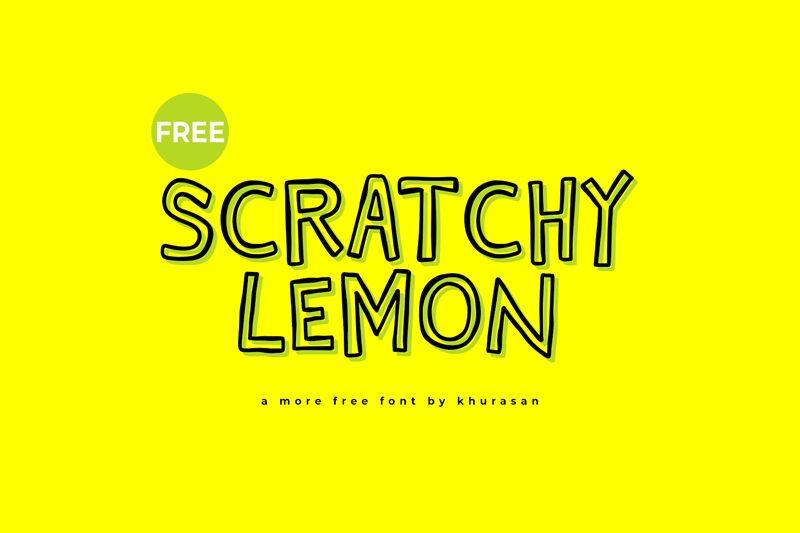
Scratchy Lemon
Scratchy Lemon font, designed by Khurasan, embodies a playful spirit with its outlined cartoon style. This font captures attention with its whimsical contours and lively character, striking a balance between fun and boldness. The exaggerated forms give it a dynamic presence, making it perfect for creative projects that aim to evoke joy and enthusiasm.
The aesthetic appeal of Scratchy Lemon lies in its unique ability to communicate a sense of lightheartedness while retaining clarity. Its distinct outlines enhance visibility, making it an excellent choice for vibrant posters, children's book covers, and branding aimed at youthful audiences.
Whether used in advertisements or playful packaging designs, Scratchy Lemon effectively conveys a lively narrative that resonates with viewers—ideal for any project looking to embrace creativity and charm.